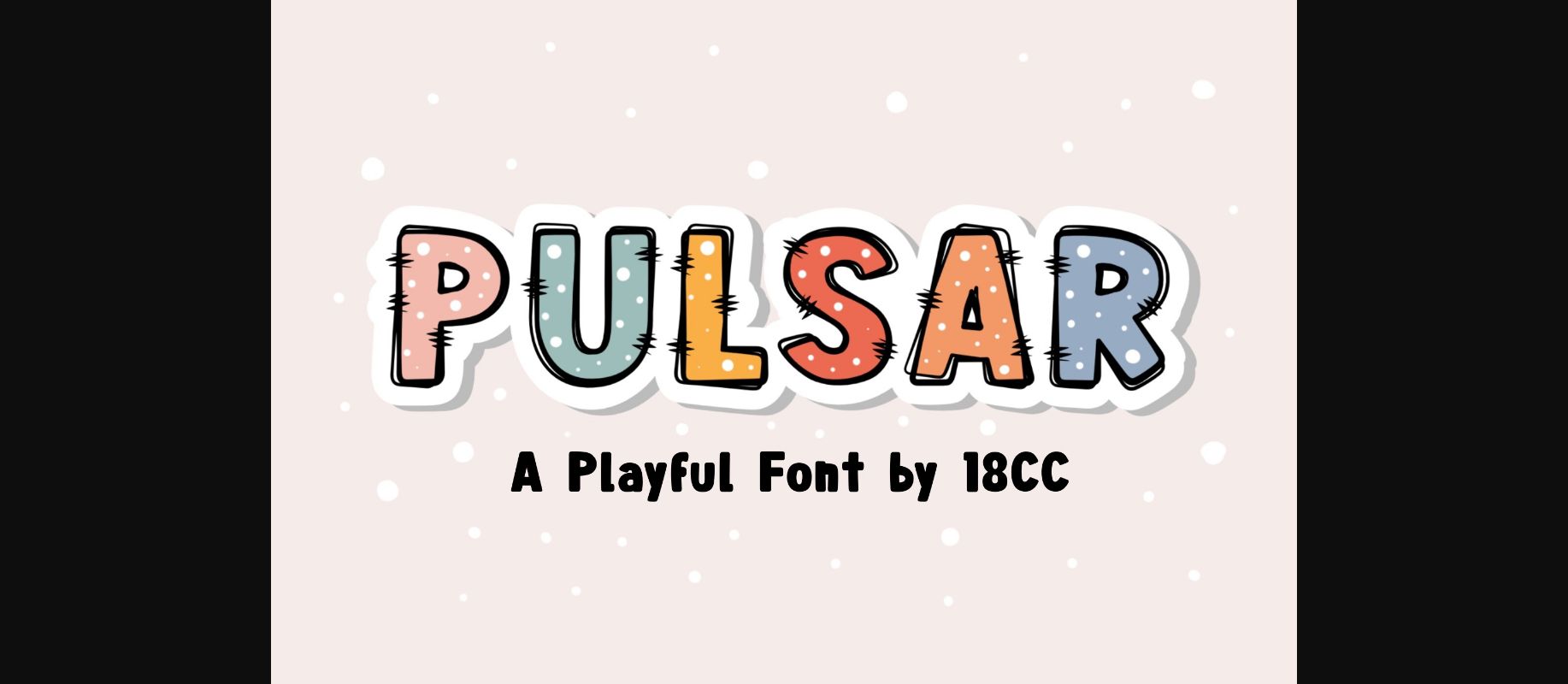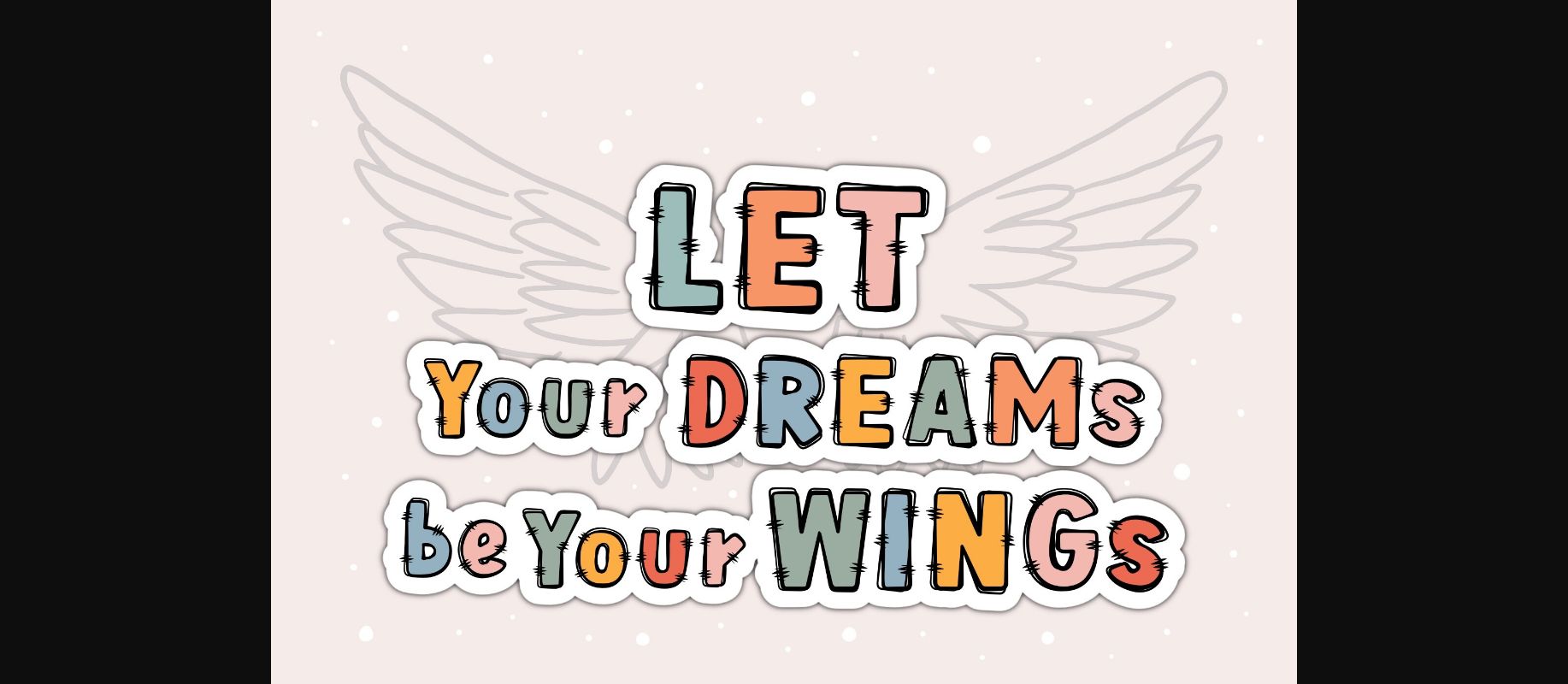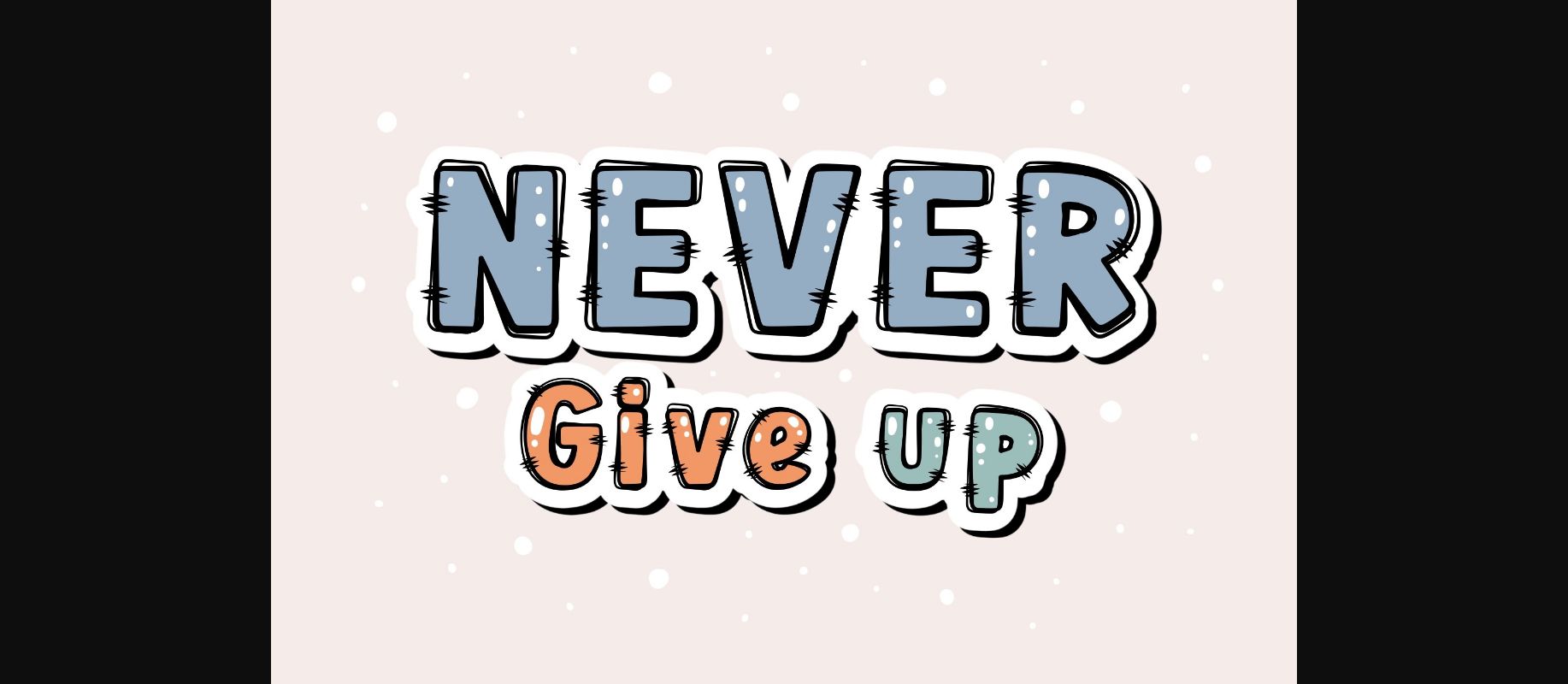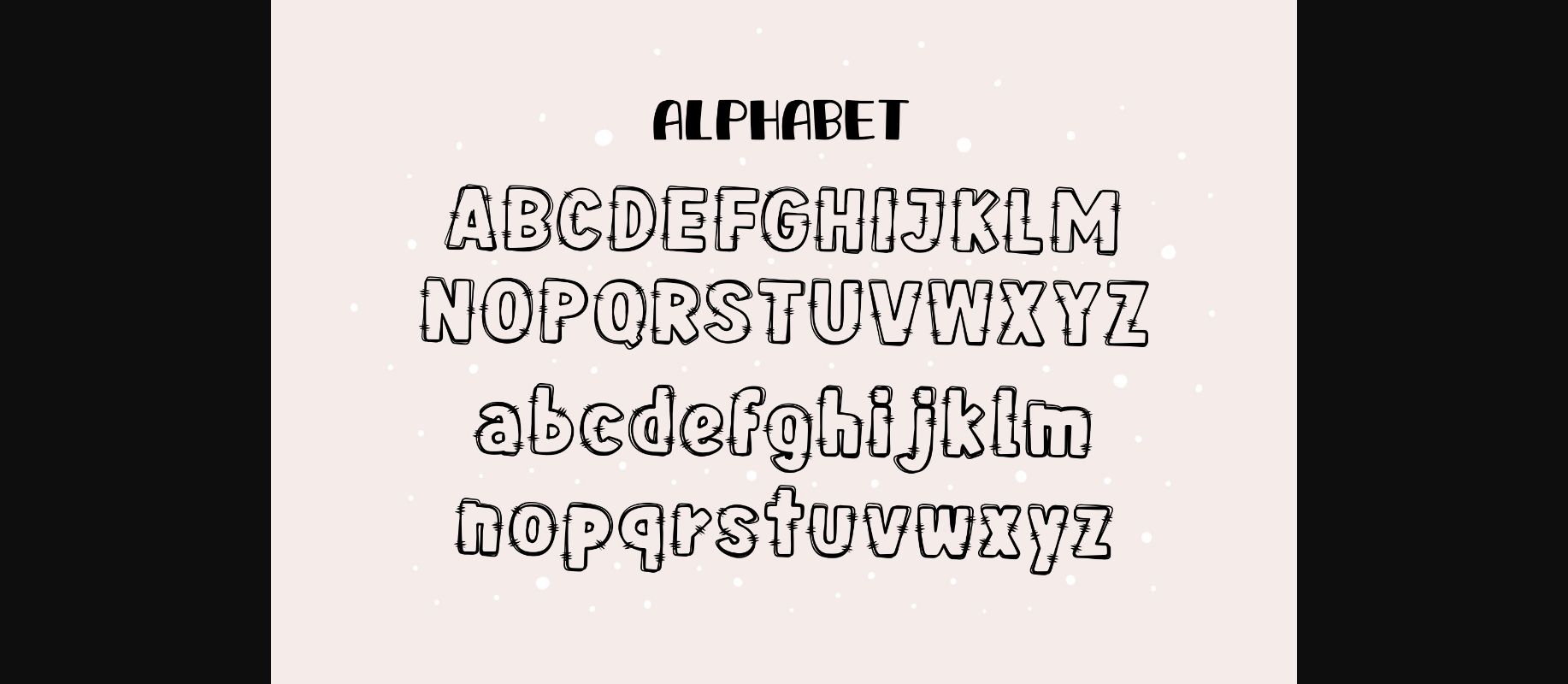
Pulsar Font
About Pulsar Font
Pulsar is a cute and funny font. This font is perfect for a design that requires a fun accent. Is suitable for book covers, coloring, posters, packaging, merchandise, logotype, and much more.